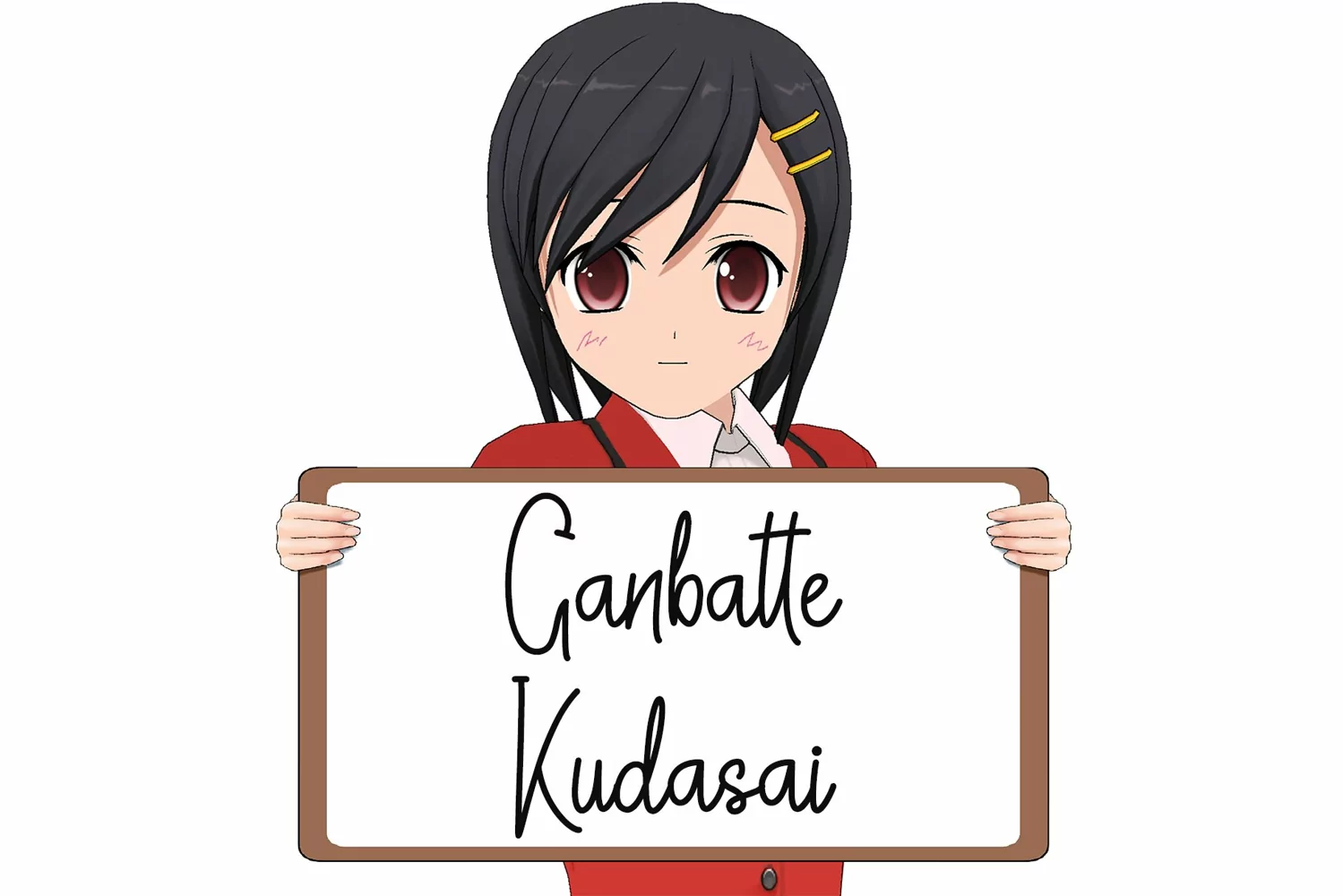
Beautiful Handwritten
Demon Hunther
Demon Hunther is a Handwritten monoline font by Letterafa Studio. It has flowing letters that will give your designs a unique and sweet look. Demon Hunther font is perfect; logos, greeting cards, a package design, a brand identity, craft design, any DIY project, book title, wedding invitation, packaging, and more.
- Basic Uppercase and Lowercase
- Ligature
- Number and Punctuation